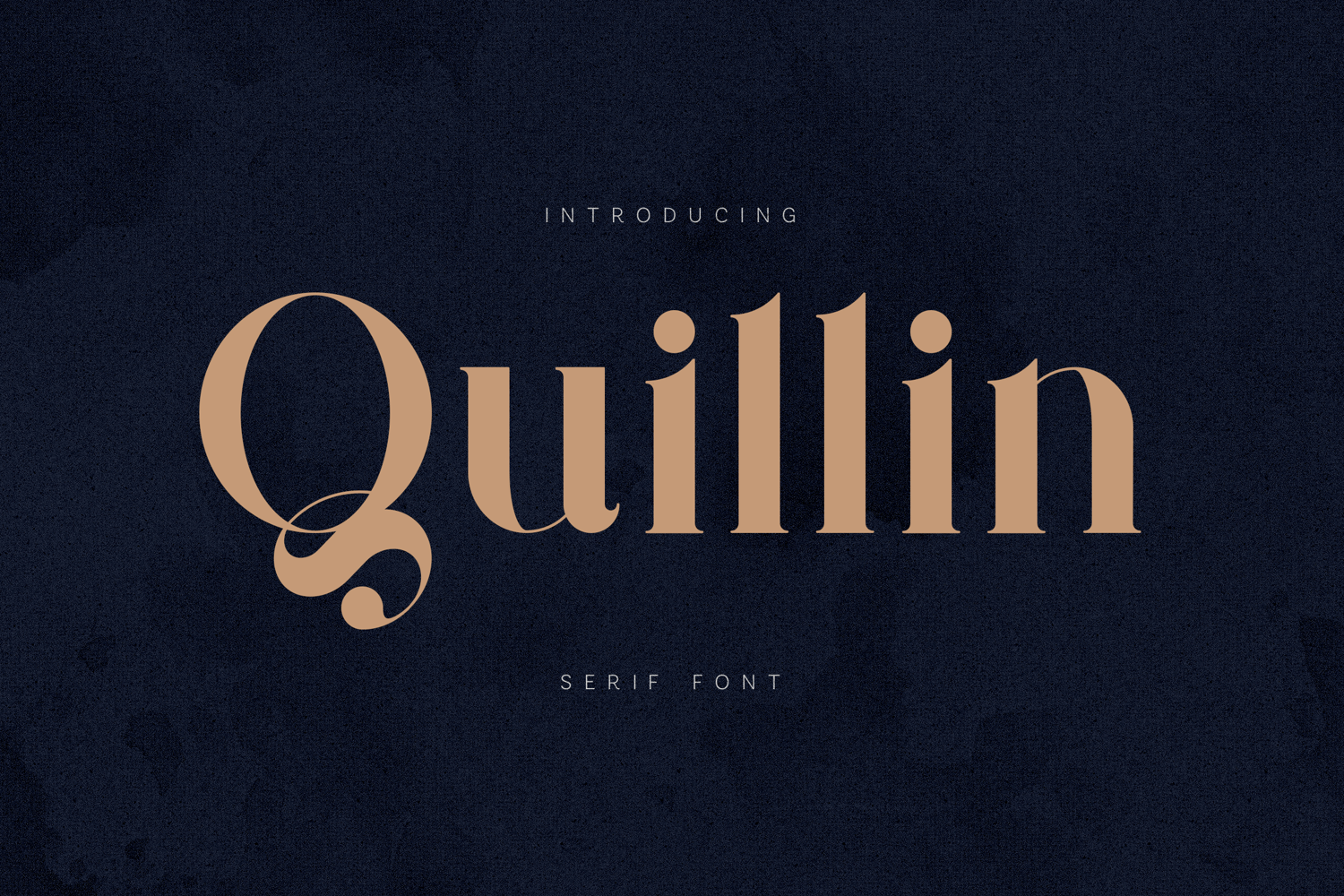
Quillin Serif Elegant Modern Editorial Typeface
Quillin is an elegant modern serif font crafted for sophisticated and expressive typography. With its refined curves, stylish contrast, and distinctive character shapes, it brings a timeless yet contemporary feel to any design.
Designed with editorial aesthetics in mind, Quillin works beautifully across branding, magazines, luxury packaging, and high-end visual identities. Its carefully balanced letterforms and multilingual support make it a versatile choice for both print and digital projects.
Whether you’re creating bold headlines or refined layouts, Quillin delivers a graceful and memorable typographic presence.
Perfect for• Editorial & magazine design
• Branding & identity
• Luxury packaging
• Fashion & beauty projects
• Logos & headlines
• Social media graphics
• Elegant high-contrast serif
• Unique character details